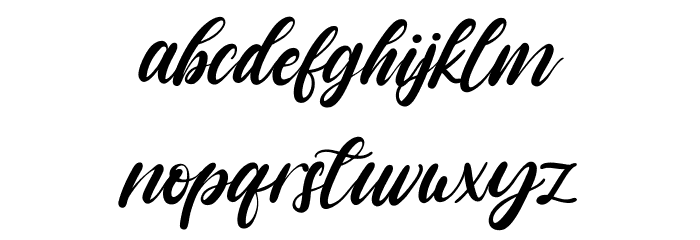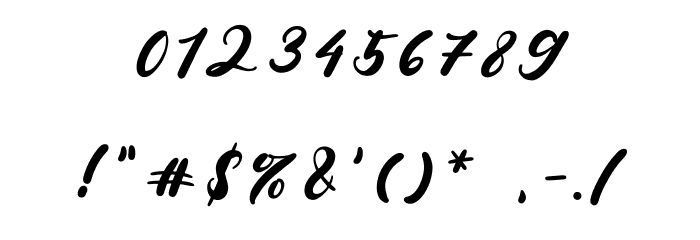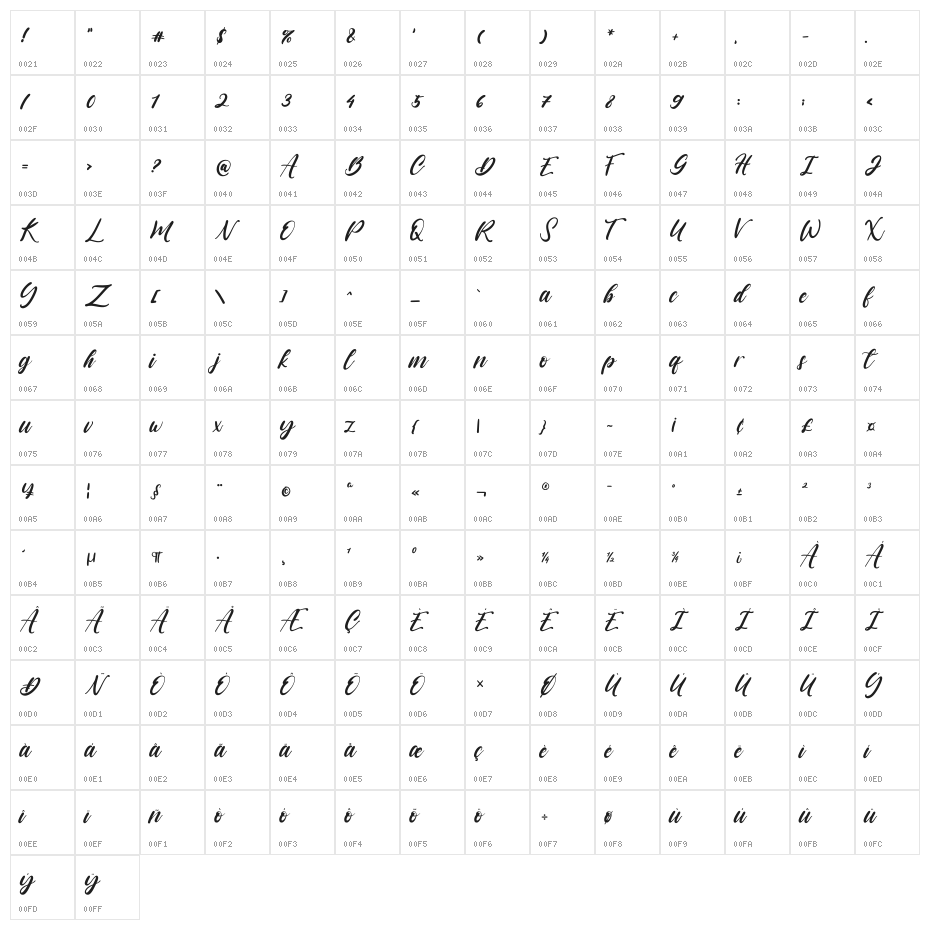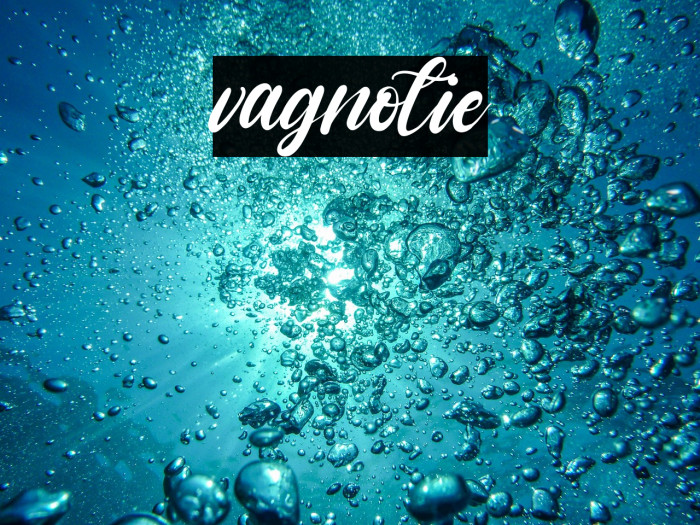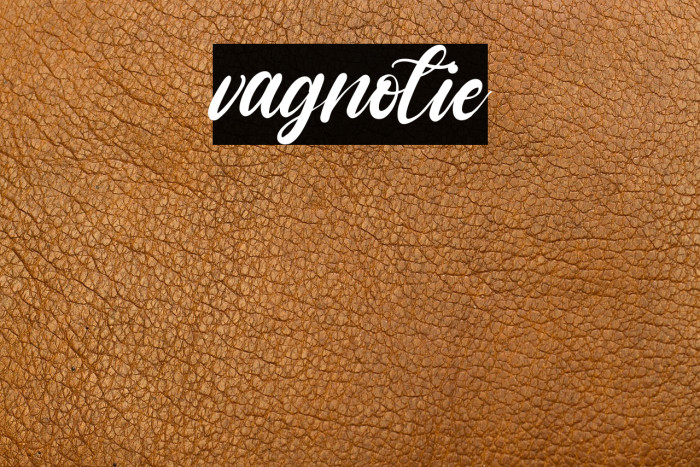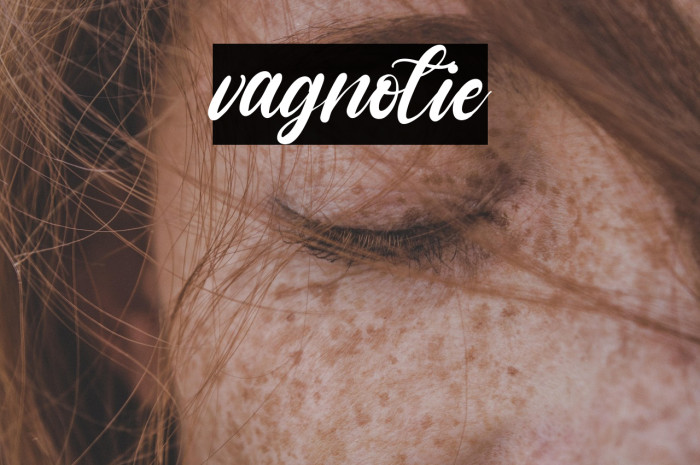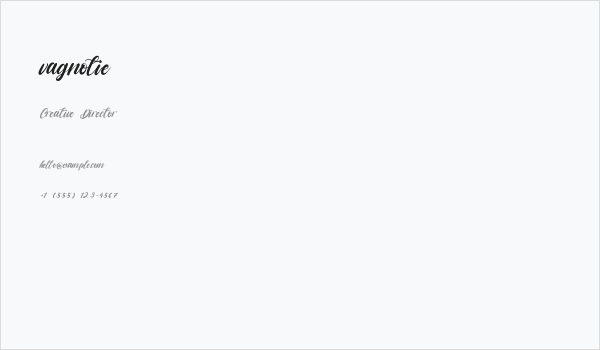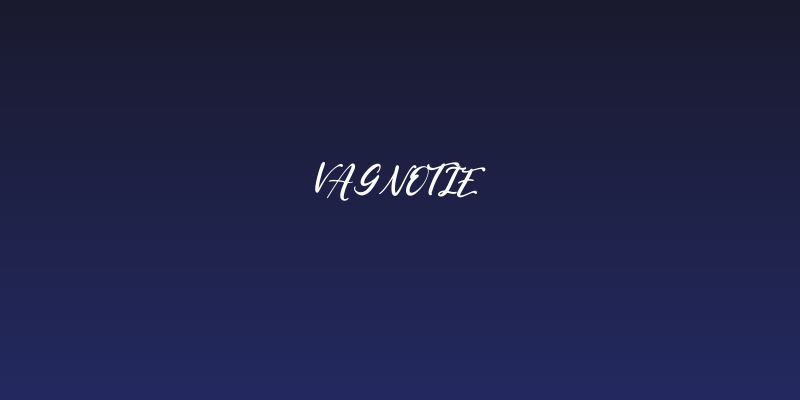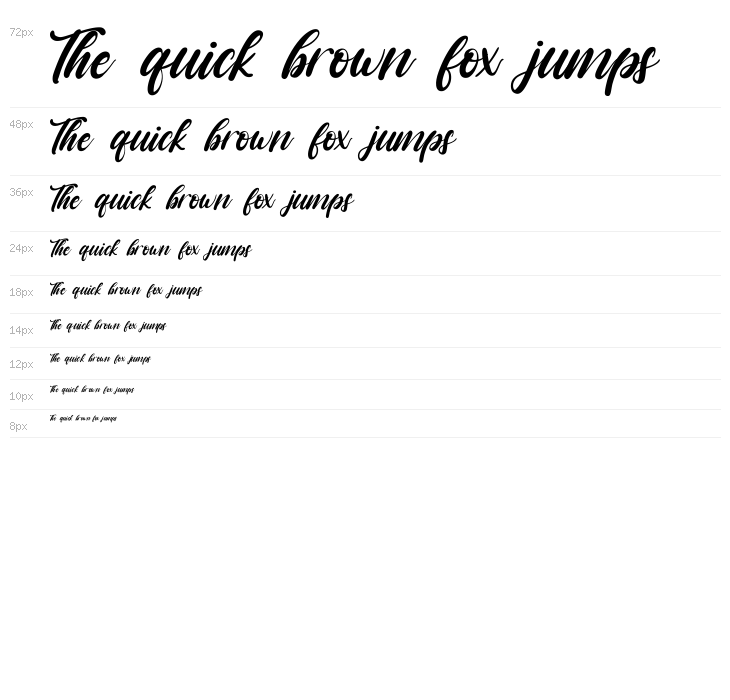
vagnotie Font
This font features a flowing, cursive style with elegant, sweeping strokes that give it a handwritten appearance. The uppercase letters are bold and dynamic, with a slight slant that adds to the sense of motion and fluidity. The lowercase letters maintain this cursive style, with smooth connections between characters, enhancing the script-like quality. The numerals are consistent with the overall design, featuring rounded edges and a playful yet sophisticated look. Special characters are integrated seamlessly, maintaining the font's cohesive aesthetic. This font is ideal for projects that require a personal touch, such as invitations, greeting cards, or branding materials that aim to convey elegance and creativity.
A flowing, cursive font with elegant, sweeping strokes and a handwritten appearance.
- Proposed Projects: Ideal for invitations, greeting cards, branding materials, and creative projects requiring elegance.
- Category: Script
- Overall Style: Elegant, Handwritten
- Use Case: Logos, Invitations, Greeting Cards